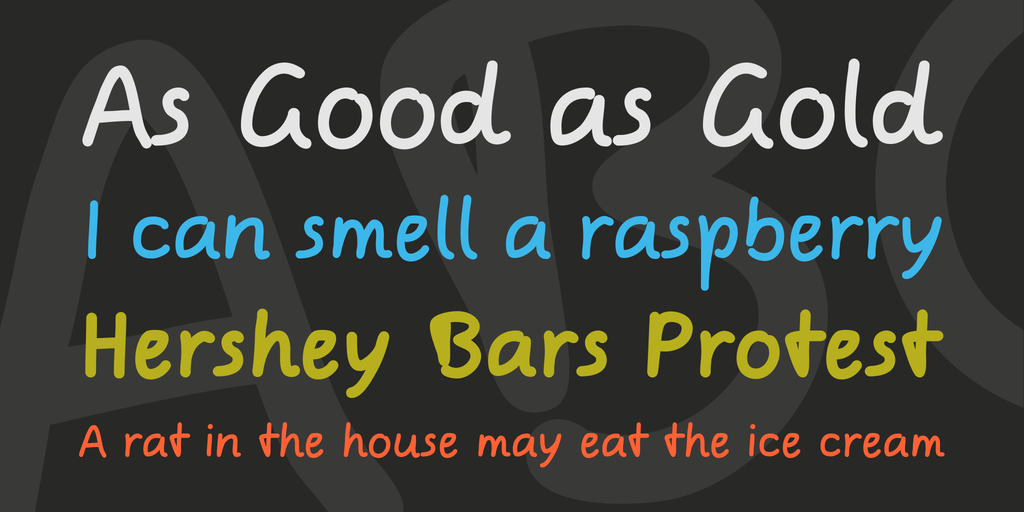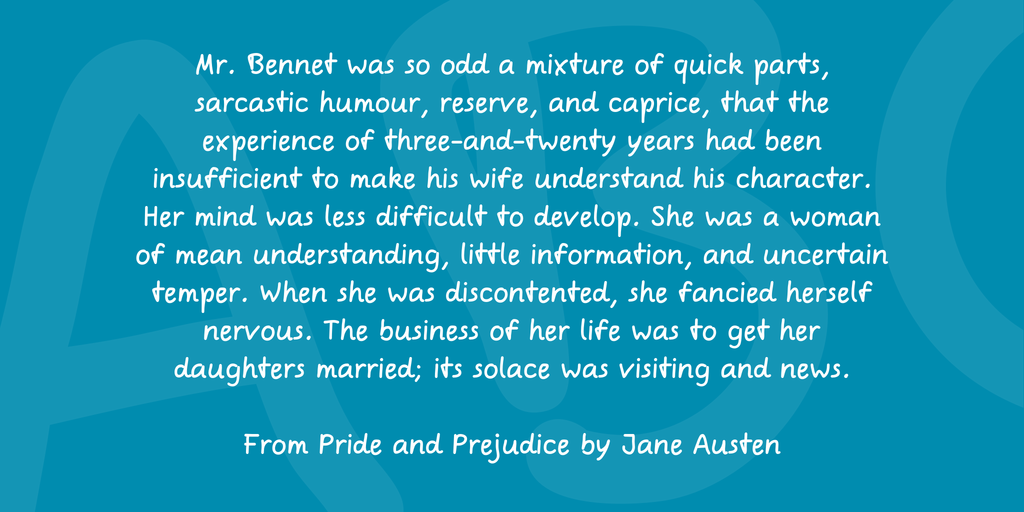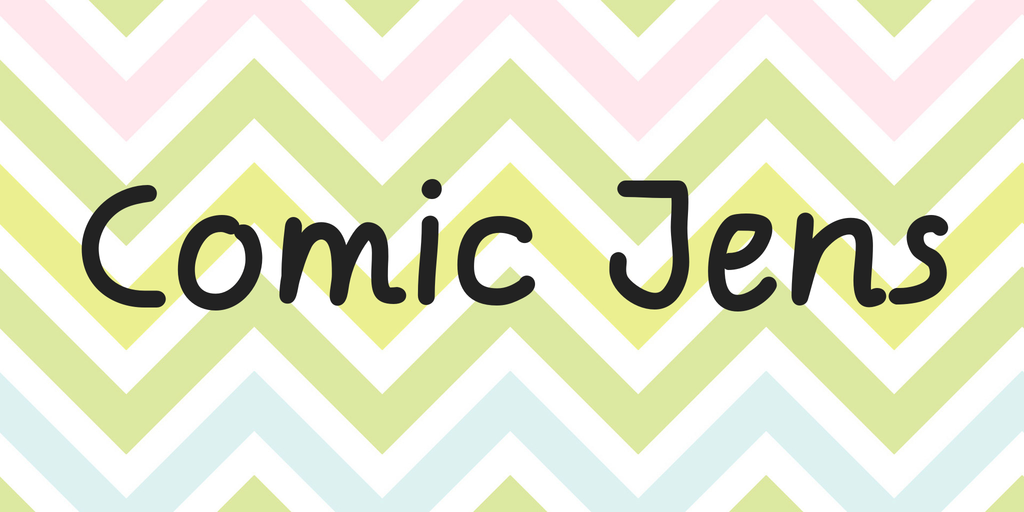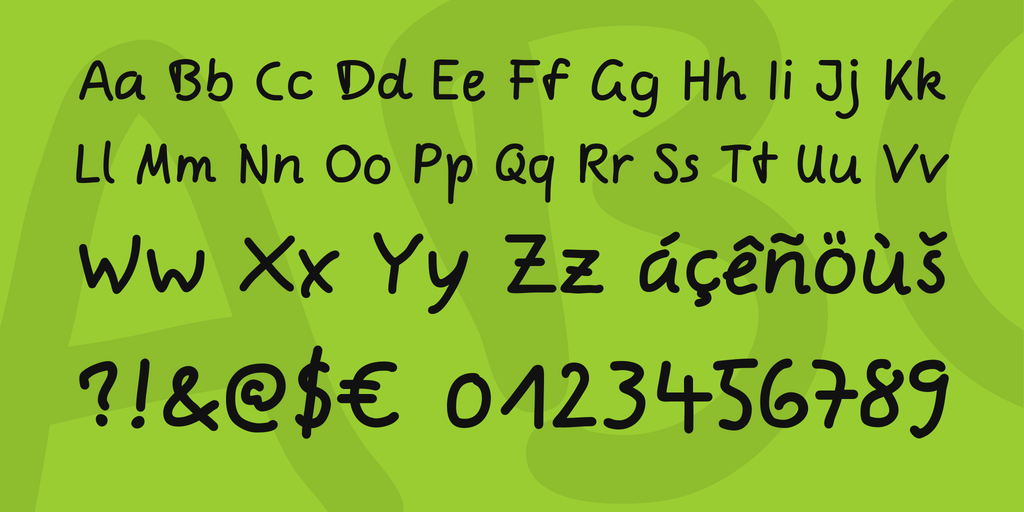
Comic Jens Font Family
In 2008 I had tried to draw my “handwriting” into the computer using a mouse, just for fun, turning it into a font. AFontblog article about Comic Sans prompted the release of my typeface under the name Comic Jens. Shortly thereafter, Jürgen Siebert published a full article called Neue Alternative zur Comic Sans about my typeface. During the first month more than 1400 people downloaded my font.
Version 2.0 of Comic Jens has been released on 13 May 2010. It corrects some issues with a couple of letter forms and is now in TrueType-based OpenType format and features extended language support (including Cyrillc and Greek, more than WGL4), more OpenType features and improved screen display. Please see the specimen PDF included in the download for details.